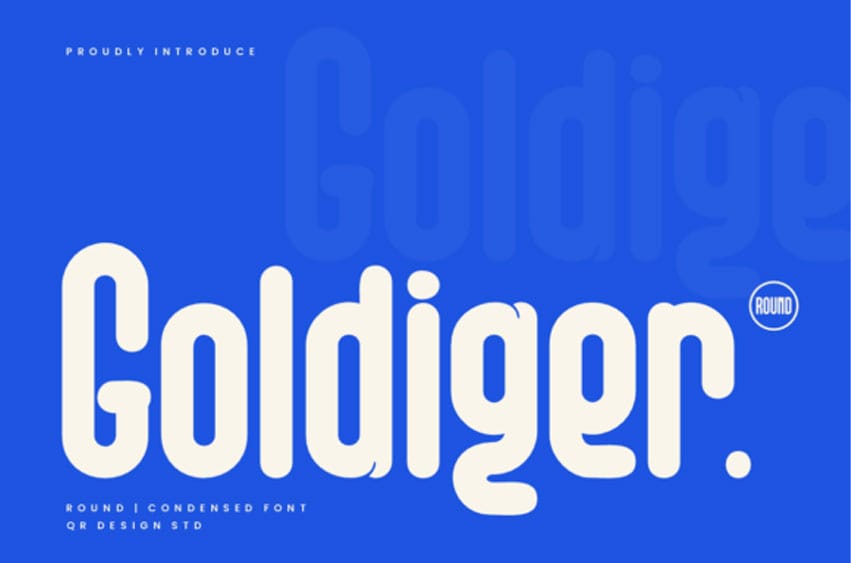
Goldiger Font is a cool sans-serif font that exudes modern sophistication and sleek style. Featuring clean lines, balanced geometry, and subtle curves, it captures a contemporary and professional essence.
Ideal for branding, headlines, packaging, and digital interfaces, it adds a fresh and confident touch to any design. With its versatile structure and crisp details, this font delivers both clarity and visual impact.